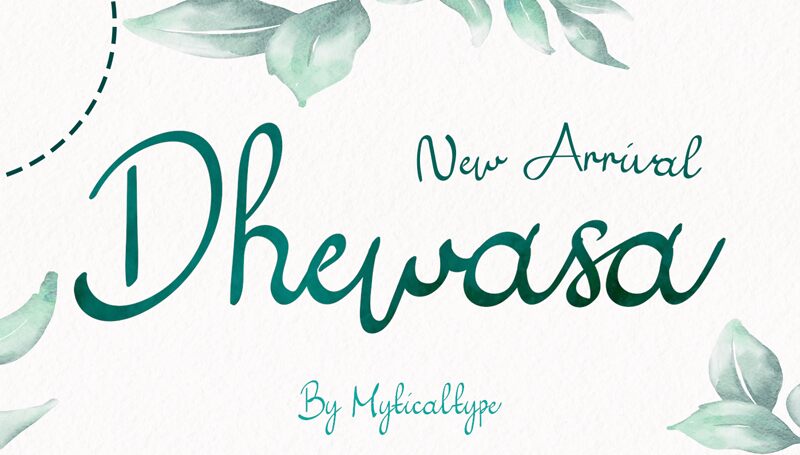
Dhewasa Bold, a captivating handwritten font by Fahmi Yudistira, seamlessly blends creativity and versatility. With its bold strokes and authentic feel, this font is ideal for a wide range of projects. Capture attention with eye-catching headlines or add a personal touch to invitations and greeting cards. Dhewasa Bold brings warmth and character to logos, branding materials, and social media posts. Whether you're designing for fashion, beauty, or lifestyle industries, this font's unique charm will make your creations stand out. Elevate your designs with Dhewasa Bold's artistic flair and make a lasting impression on your audience.
Fahmi Yudistira
Dhewasa